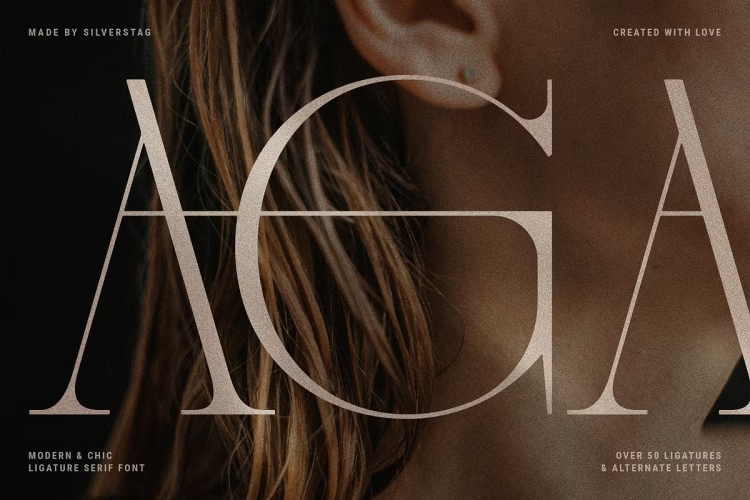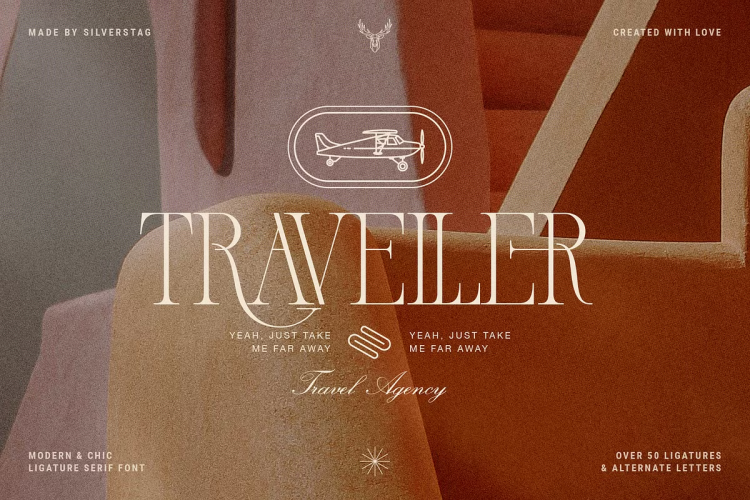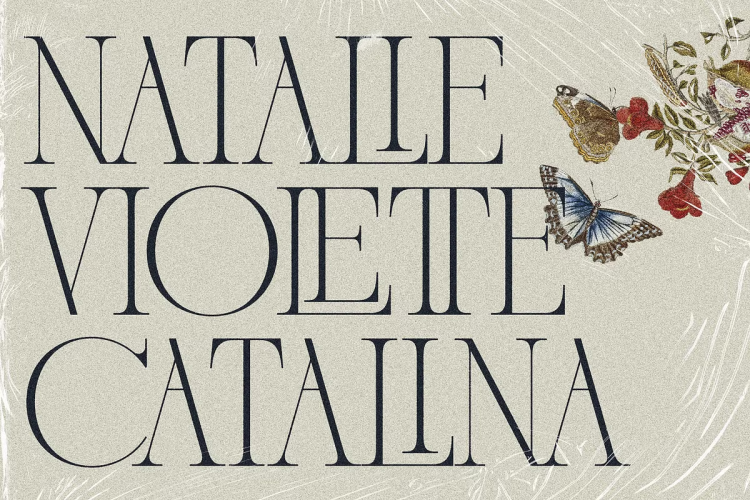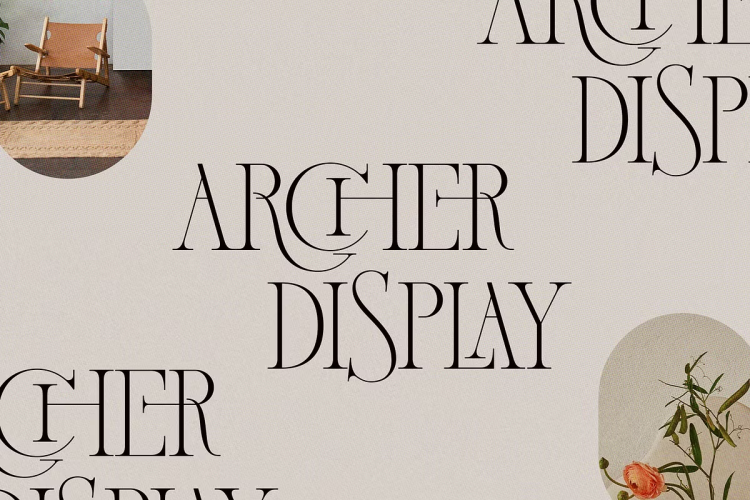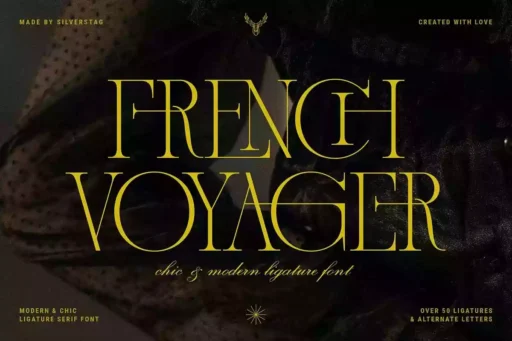
French Voyager Font
French Voyager is a beautiful serif font by SilverStag Type Foundry with a contemporary twist of art deco. This is a serif revival that takes you back in time to a more elegant age while also giving you the freedom to use it in many different designs. This is ideal for logos, quotes, posters, branding, website headlines, newsletters, and any other design-related work – it adds class to any project.
It has more than 60 beautiful ligatures and several sets of alternates that enable you to design personalized typography. Regardless of whether you are designing striking headlines or complex layouts, French Voyager is perfect for that.
French Voyager is a multilingual font, which means it is appropriate for any project to use in various countries and for various people. It has numerals and punctuation, which makes it suitable for any purpose – be it for business or art. Also, the font package offers a brief guideline on how to use the ligatures and alternate characters, making it very easy to incorporate them into various design software and even simple-to-use applications like Canva. This makes it a versatile and mightily useful tool for designers of any experience.
Where French Voyager Font works best
French Voyager Font gives long-form text a classic, trustworthy rhythm — ideal for magazine spreads, annual reports and book interiors.
Pair French Voyager Font with generous letter-spacing for wordmarks in fashion, hospitality, wine and jewellery branding.
Use French Voyager Font for slide titles in Keynote, PowerPoint or Google Slides to add authority without looking dated.
What is French Voyager Font good for?